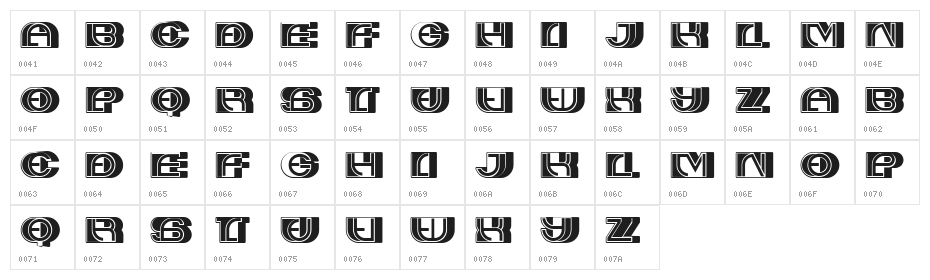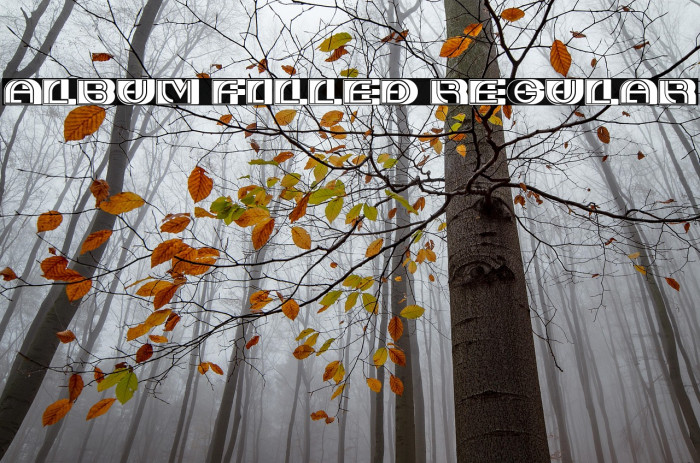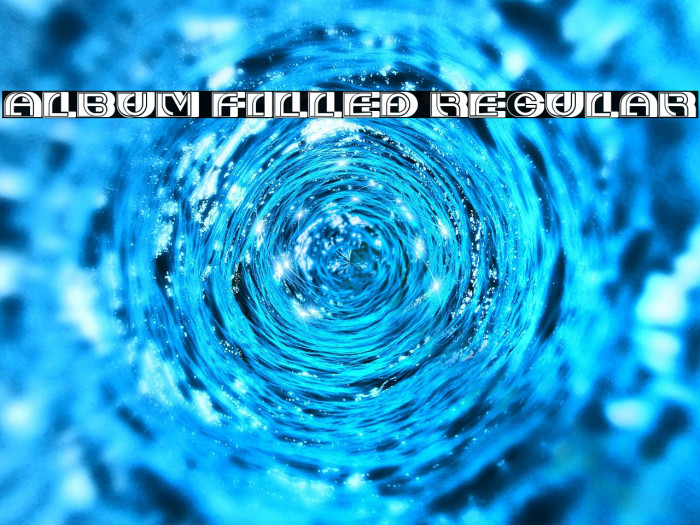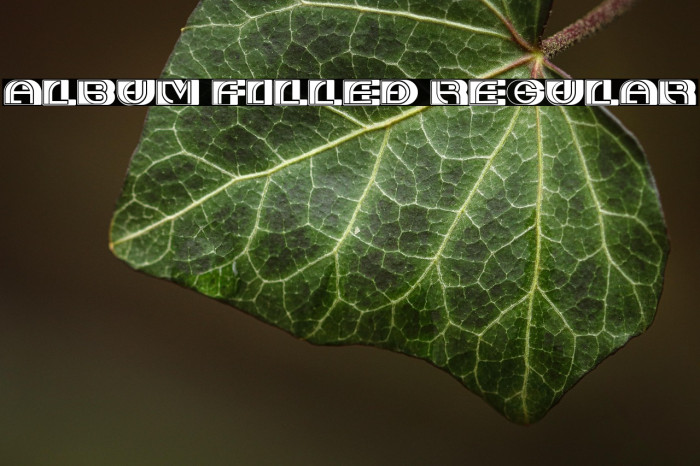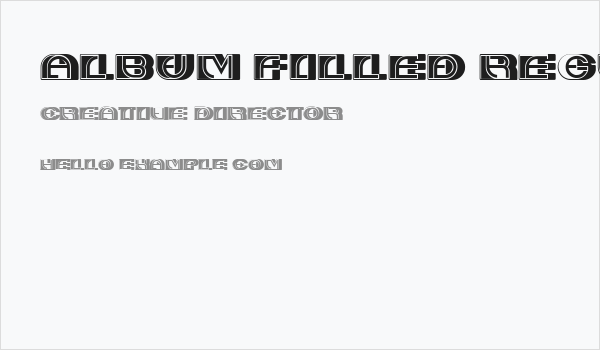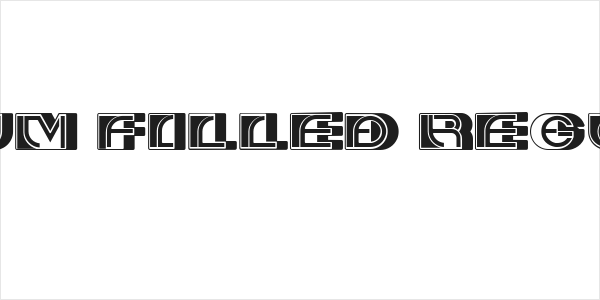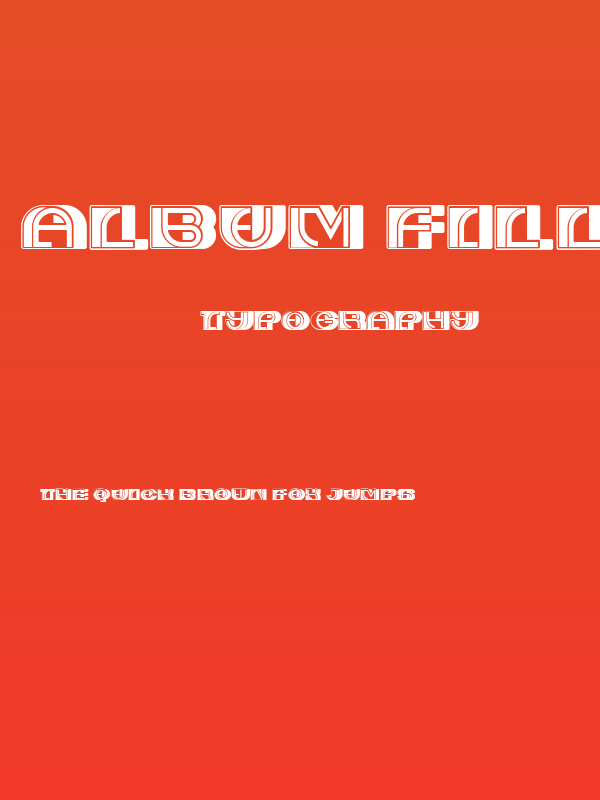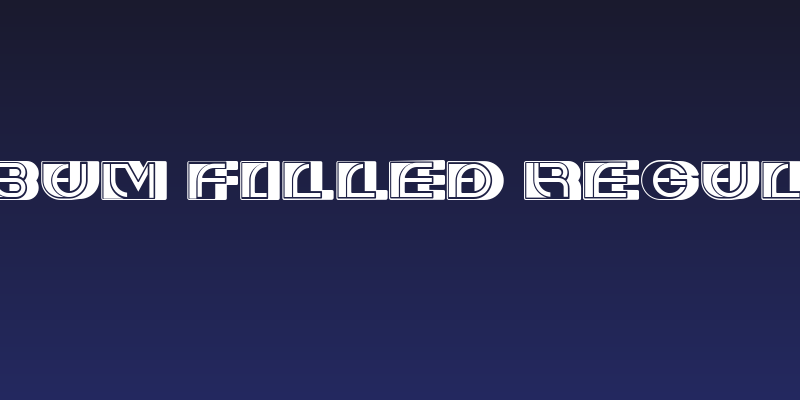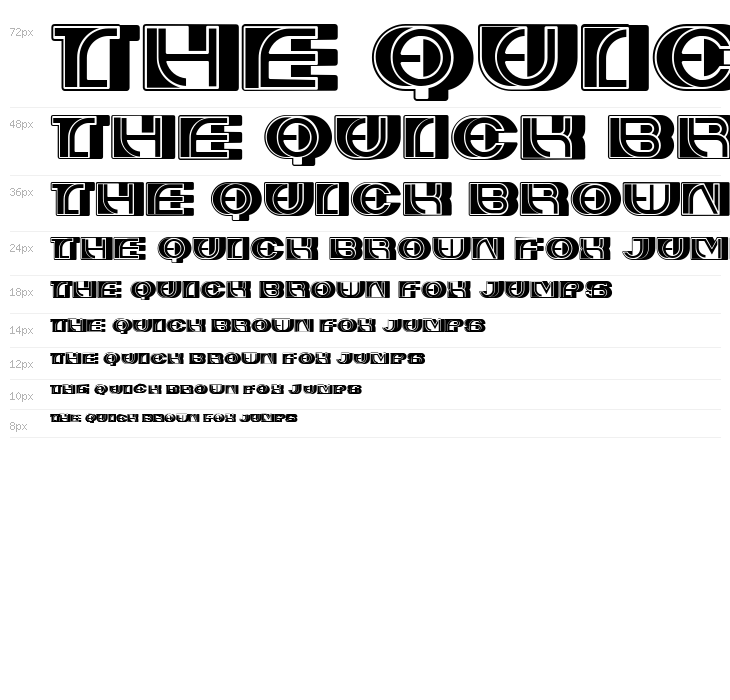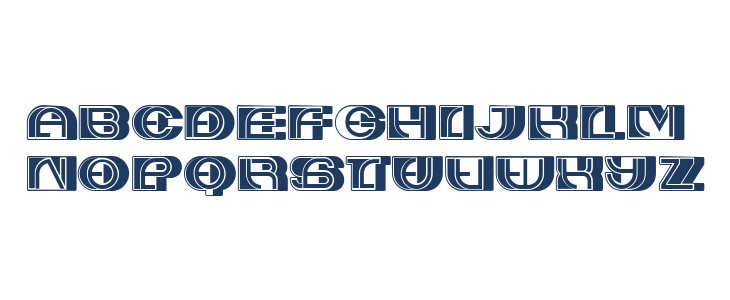
Album Filled Regular Font
Album Filled Regular Description
This font features a bold, decorative style with a filled, layered appearance that gives it a striking, three-dimensional effect. The characters are uppercase and exhibit a geometric design with thick strokes and a consistent width. The inner lines create a sense of depth, making each letter stand out prominently. This font is ideal for creating eye-catching headlines or titles where a strong visual impact is desired. The unique design elements make it suitable for modern and creative projects, adding a touch of sophistication and flair.
| Proposed Projects | Ideal for posters, album covers, branding, and any project requiring a bold, eye-catching typeface. |